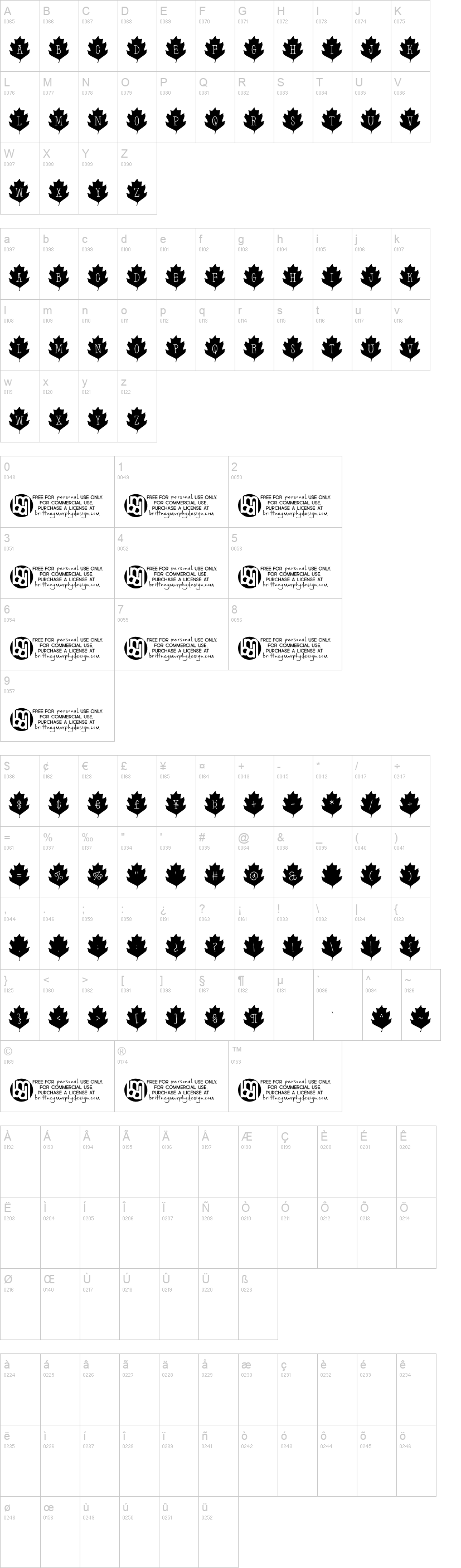
Leaf Letters
The Leaf Letters font is a cute typeface made up of leaves! Great for fall classroom decor or autumn designs.
Use the underscore _ for a blank leaf!